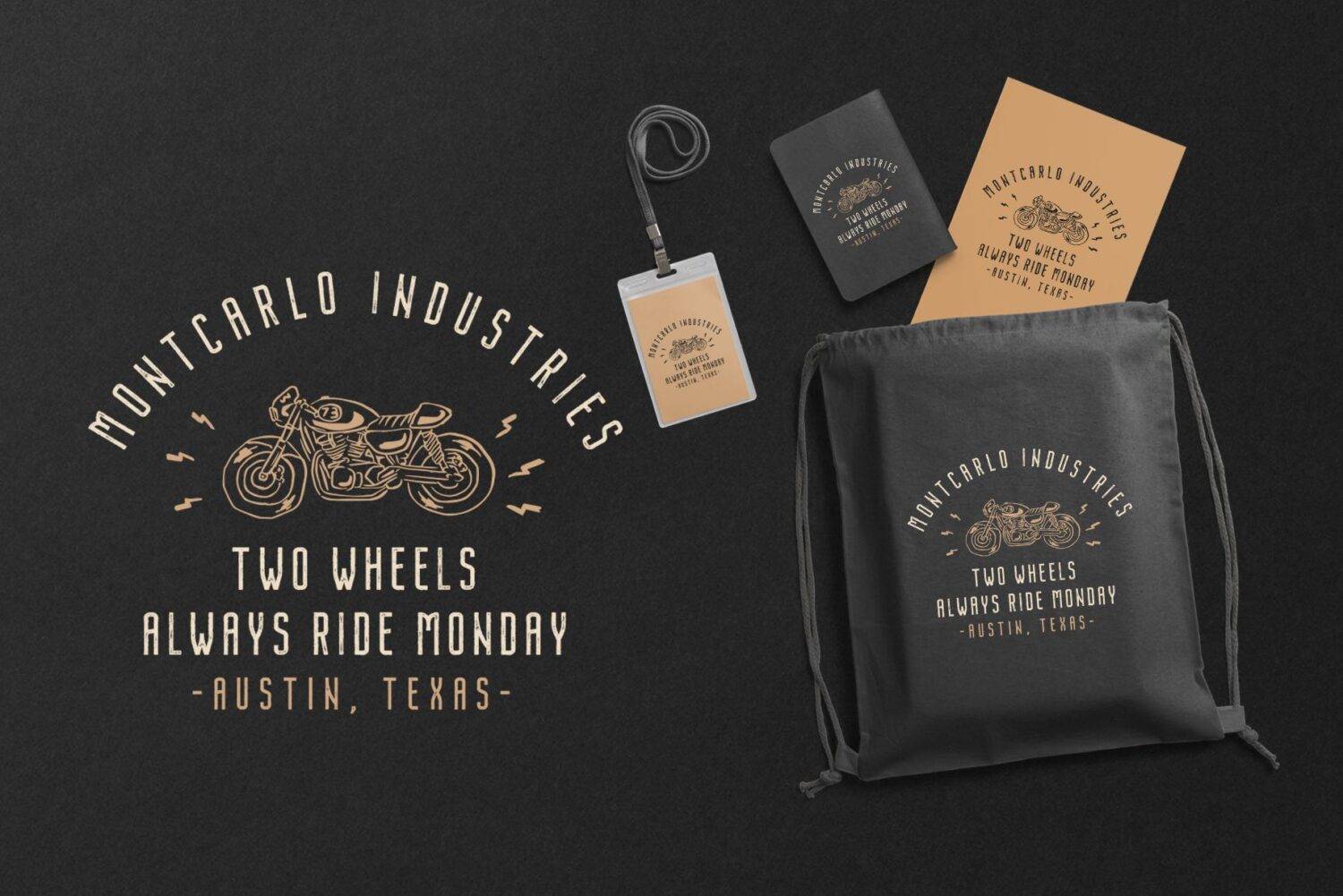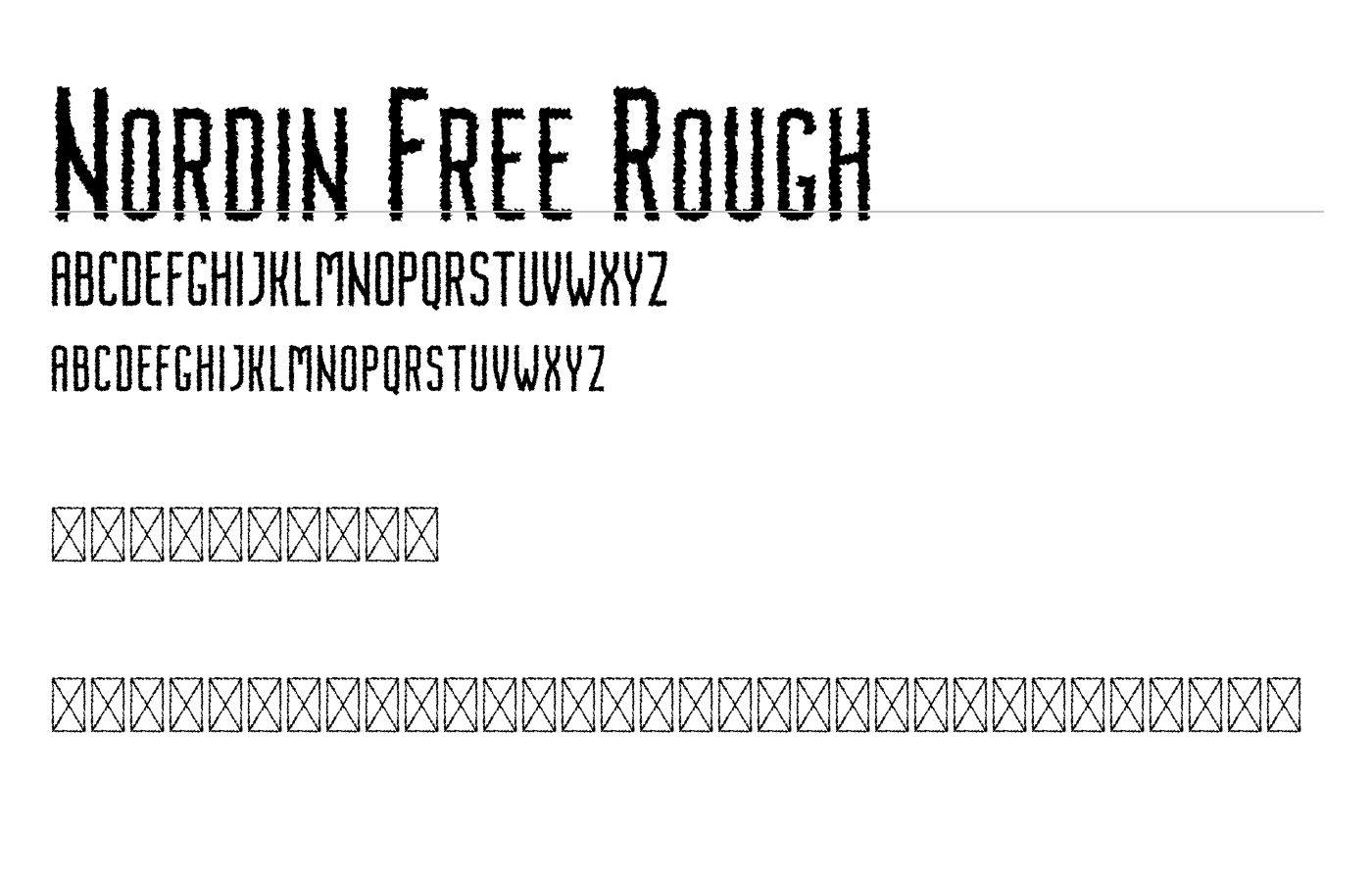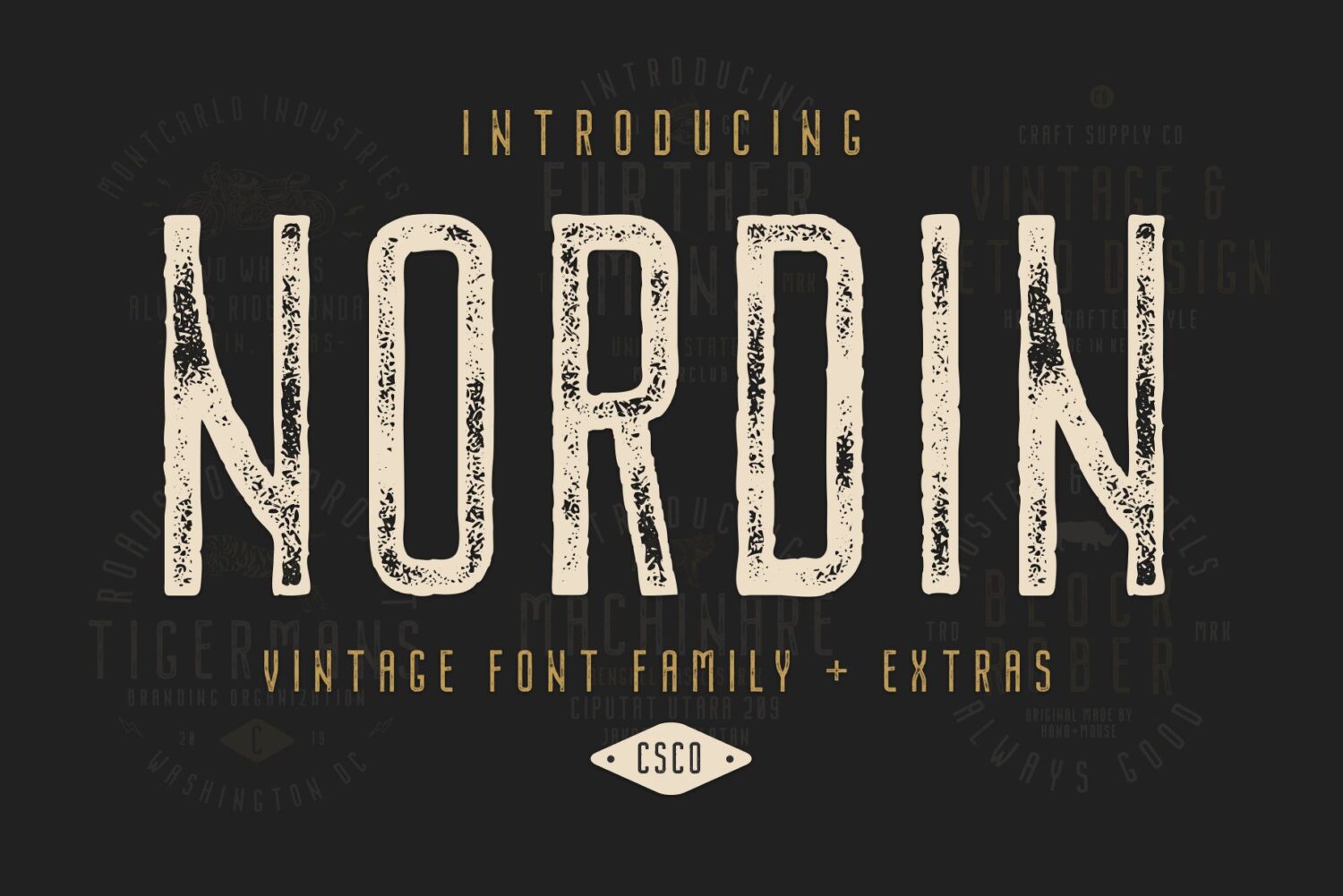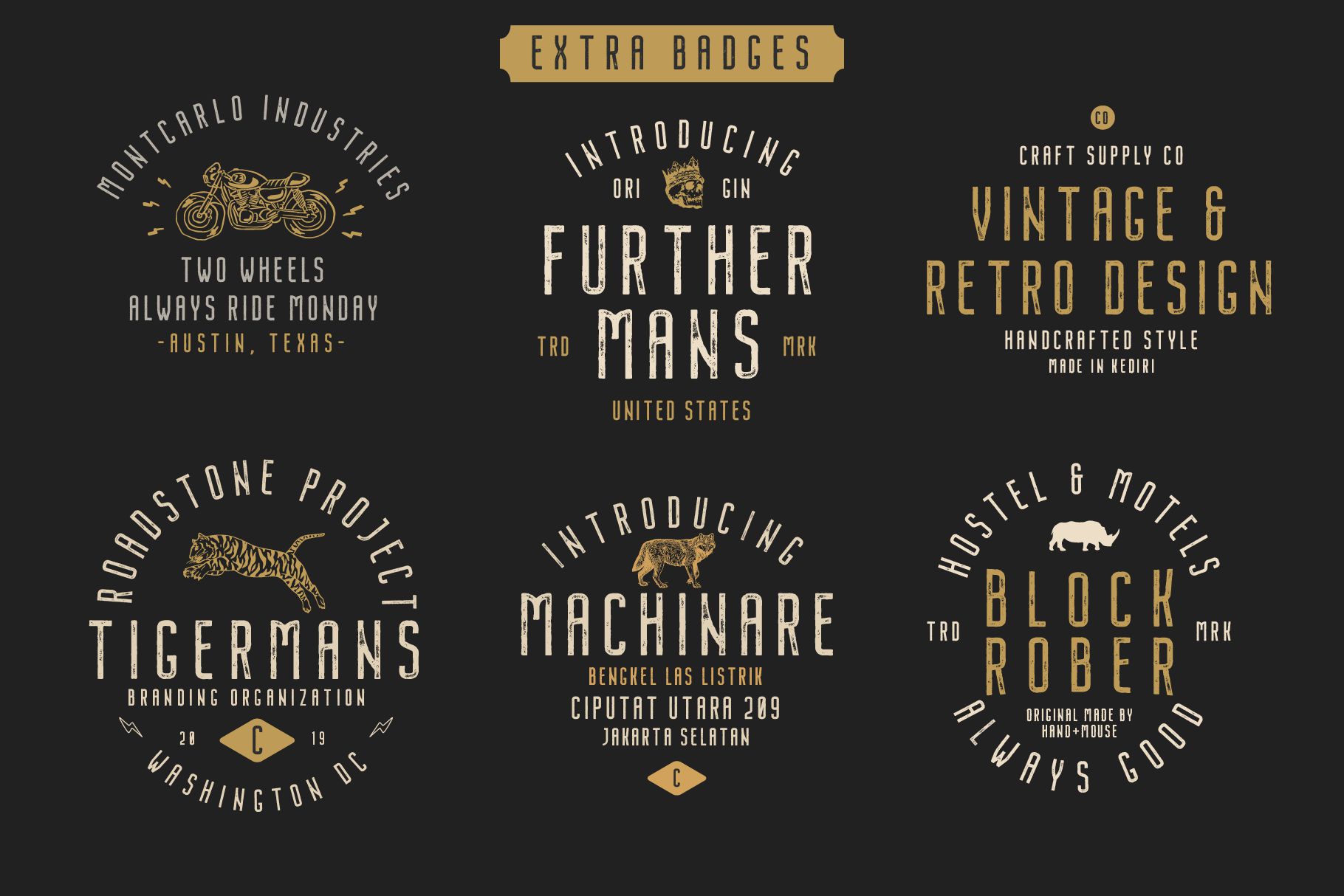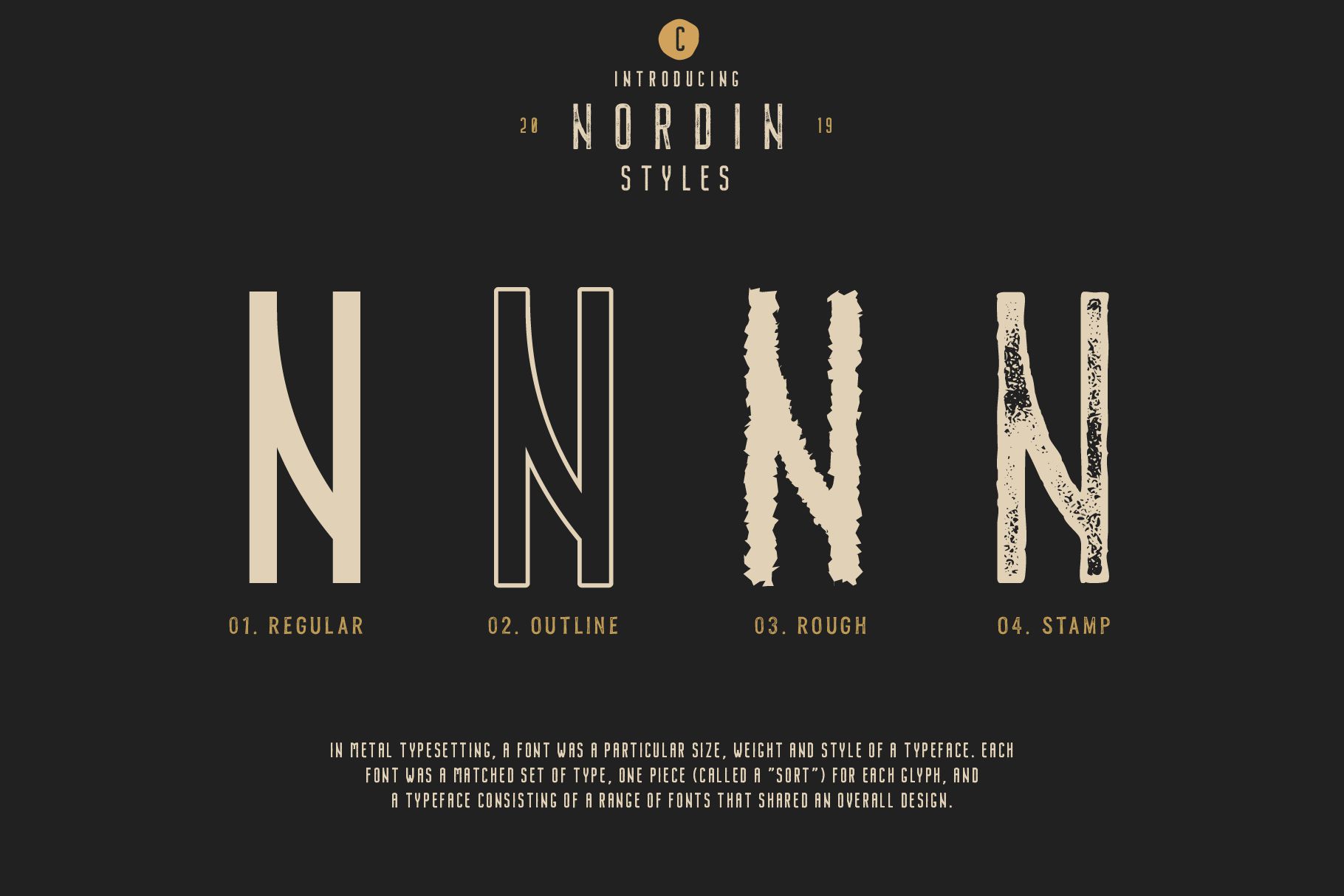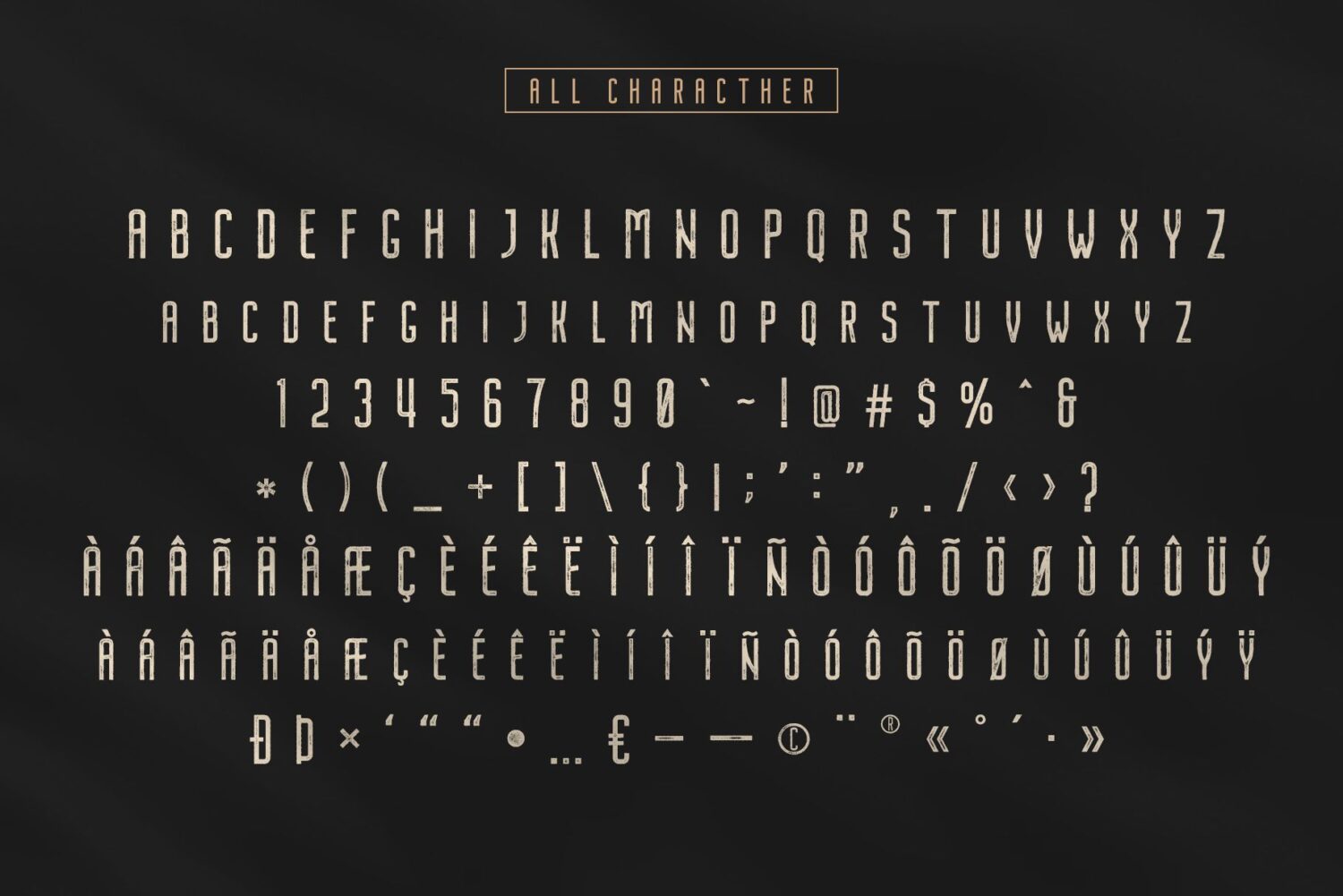
Nordin Vintage is a tall, condensed sans serif font with a distinctive rough texture that gives it a handcrafted, edgy vibe. Its narrow letterforms and uneven stroke edges create a raw, vintage feel that works great for bold headlines, posters, and branding that wants to communicate a rustic or underground style. This font’s unique personality makes it ideal for creative projects seeking a strong, unconventional look.
Nordin Vintage
About Nordin Vintage
| Font family | Nordin Vintage |